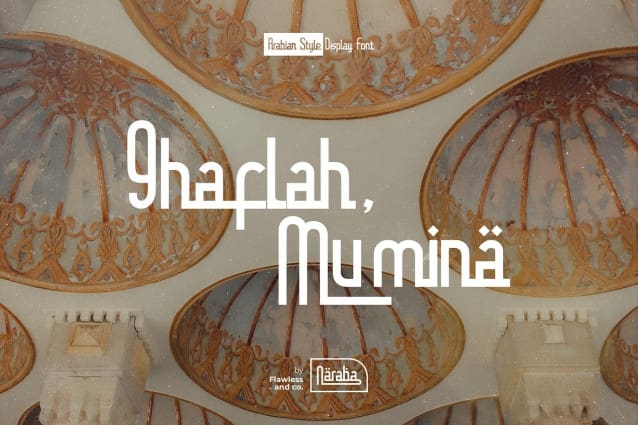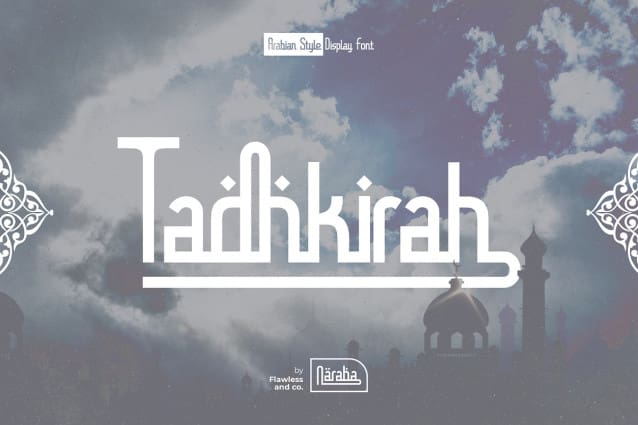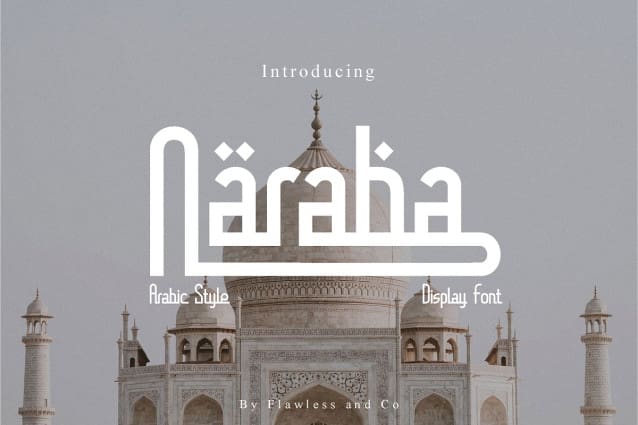
Naraba Arabic Font
Naraba Arabic Font is an Arabic Font, Modern Font with Elegant Style is perfect for branding, logos, invitation, master heads, and more.